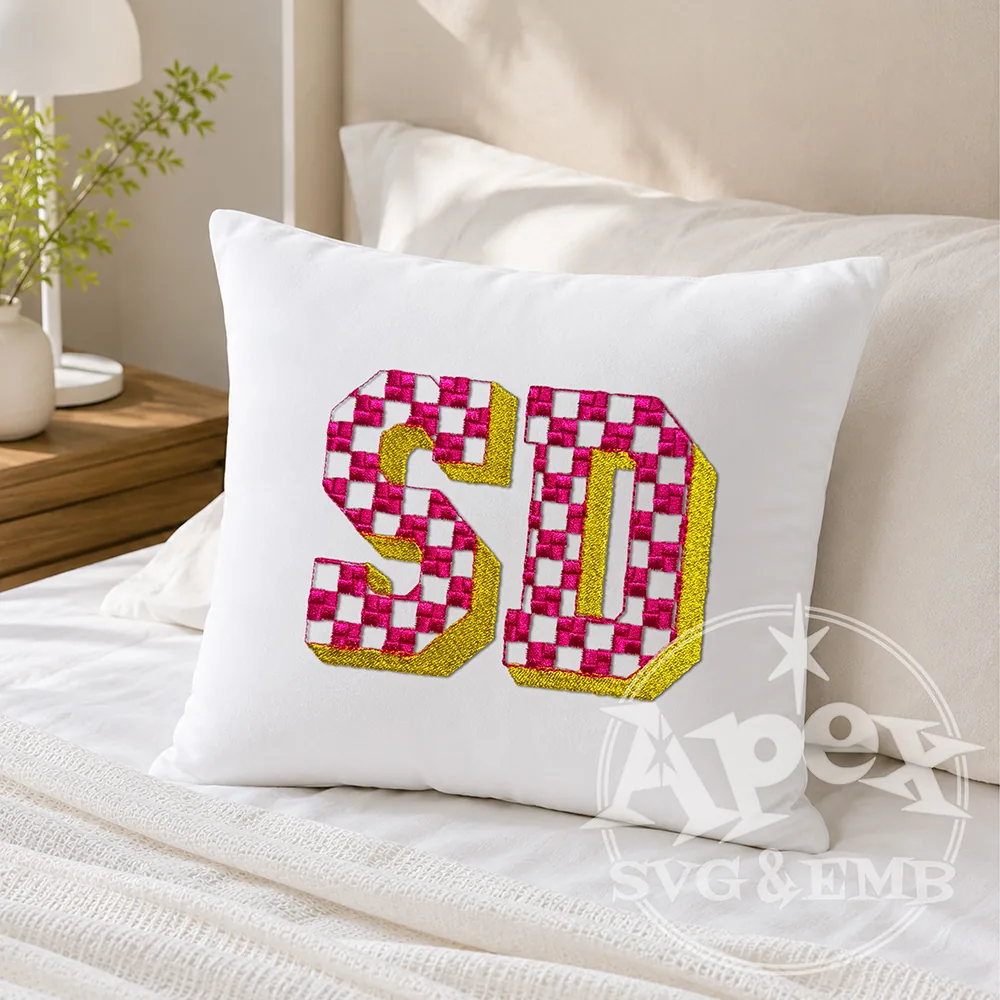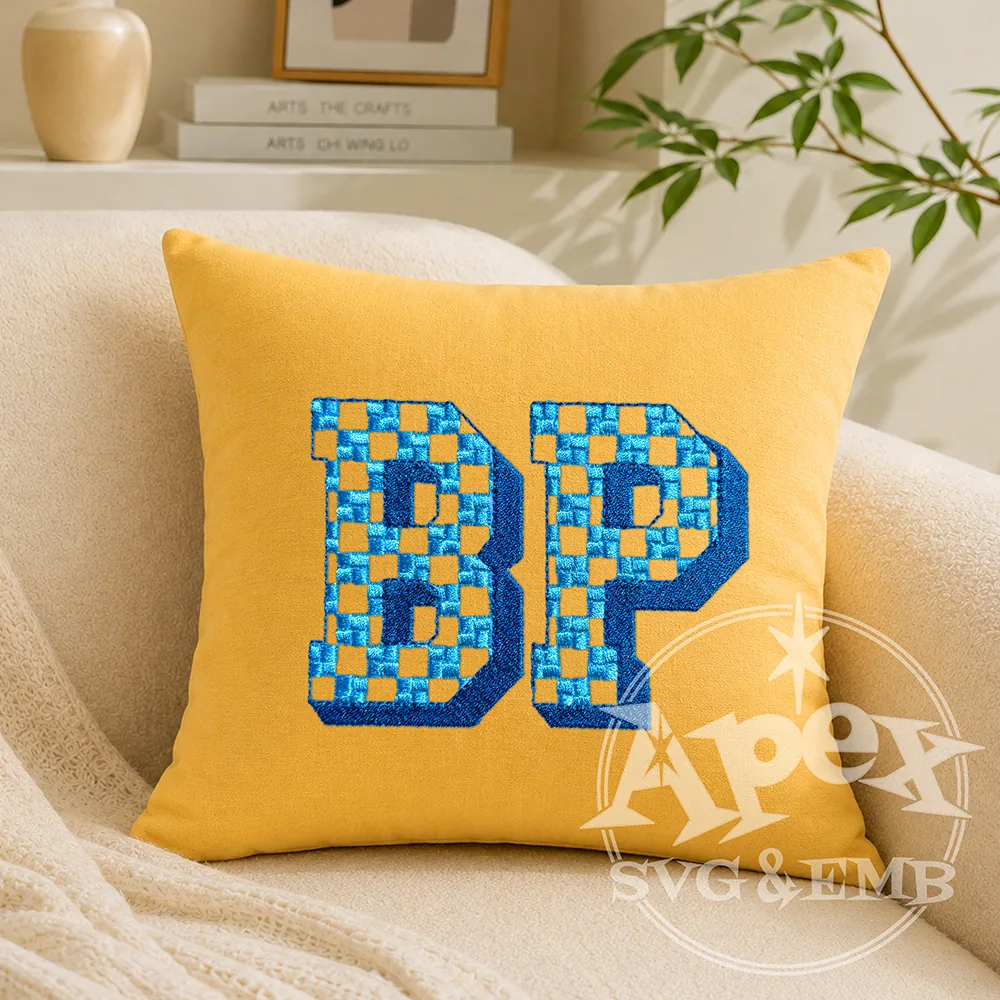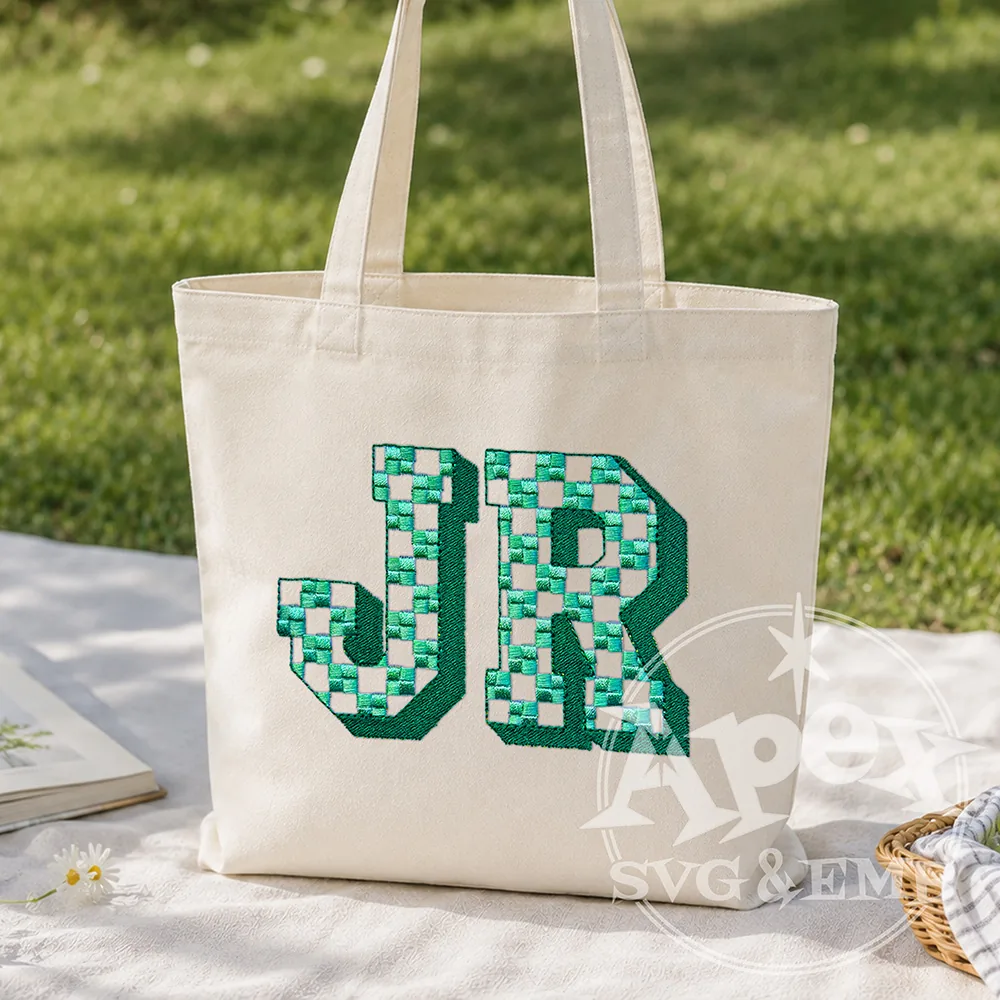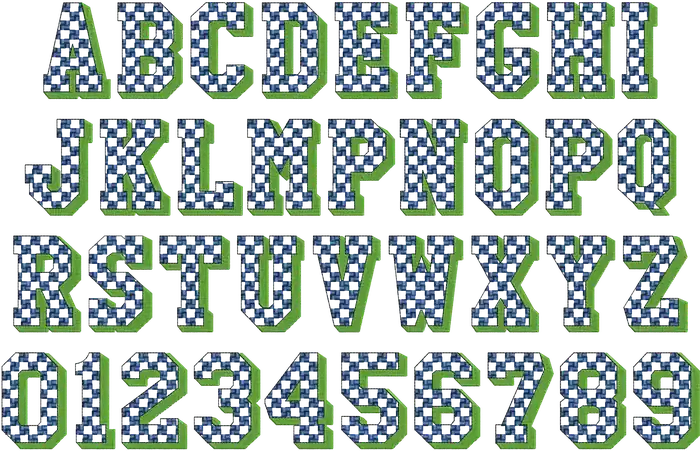
Checker Block 3-Color Letters Embroidery Font
Create cool and hip Checker print with shadow personalized gifts Embroidery Font. Featuring a shadow stacked checkered block patterns 3-color embroidery monogram set is perfect for customizing hats, towels, baby gifts, tote bags, and more.